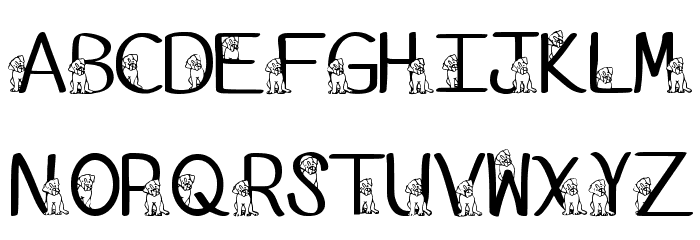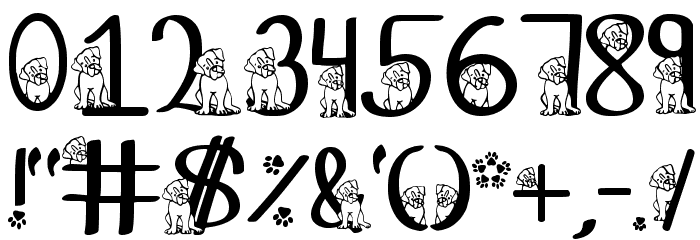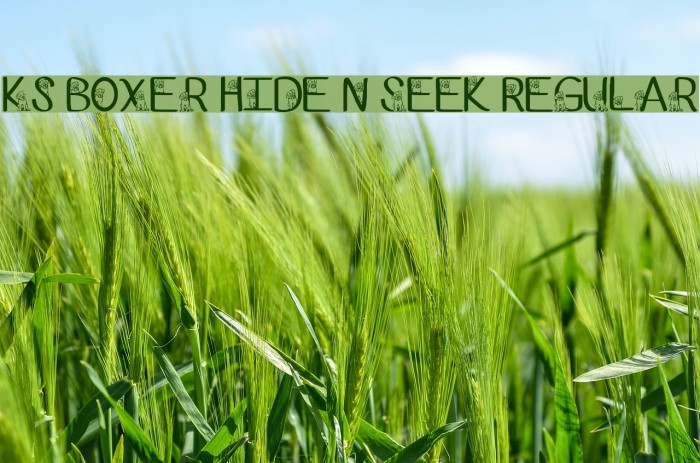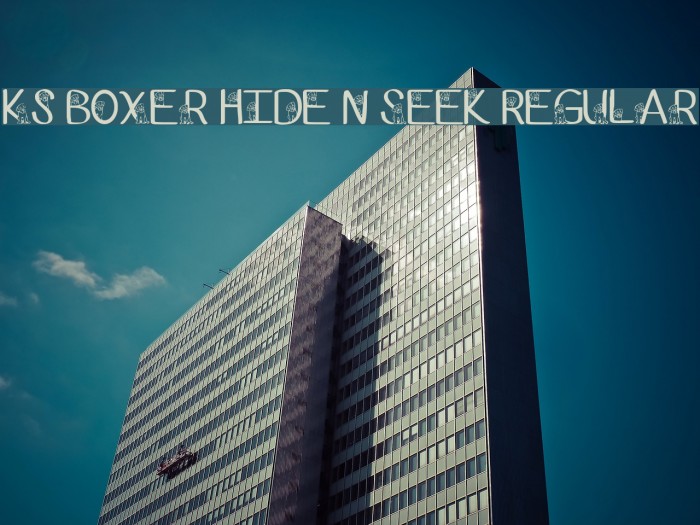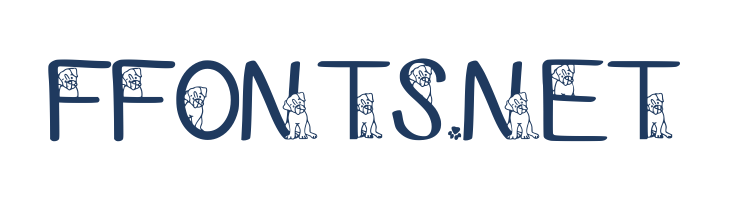
Ks Boxer Hide N Seek Regular Font
This playful and whimsical font features a unique design where each character is accompanied by a small, cartoonish dog illustration. The letters are bold and rounded, with a consistent stroke width that gives them a friendly and approachable appearance. The integration of the dog graphic adds a fun and lighthearted element, making it ideal for projects aimed at children or pet-related themes. The font maintains readability while incorporating these decorative elements, ensuring that the text remains clear and engaging.
A playful font with cartoon dog illustrations integrated into each character.
- Proposed Projects: Ideal for children's books, pet store branding, playful posters, and educational materials.
- Overall Style: Playful